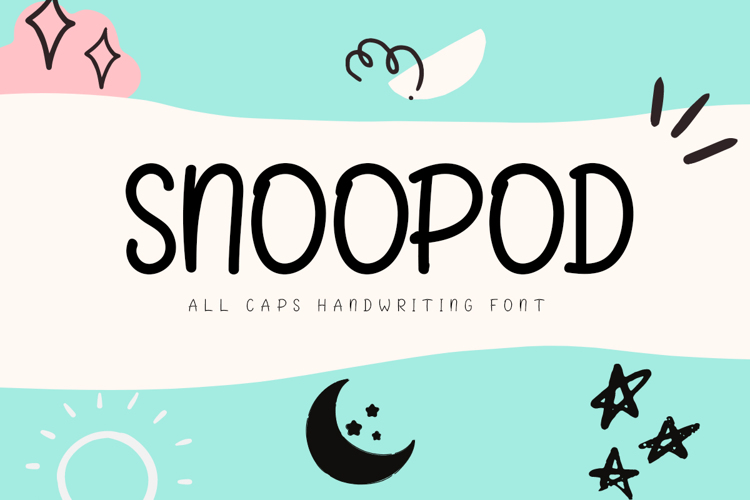
SNOOPOD Font
About SNOOPOD Font
Snoopod is a cute and simple lettered handwritten font that can be used for all chalkboard quotes or teaching material! Its authentic look will add a personal and realistic feel to your designs.